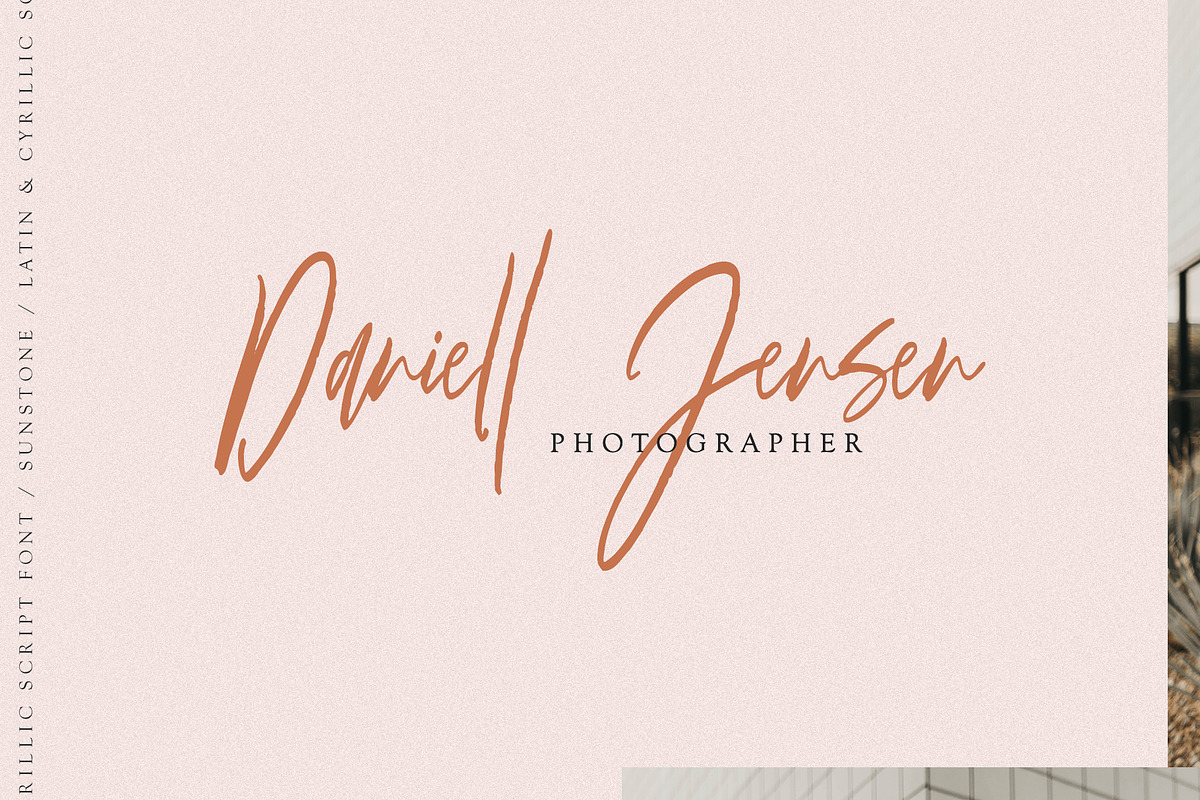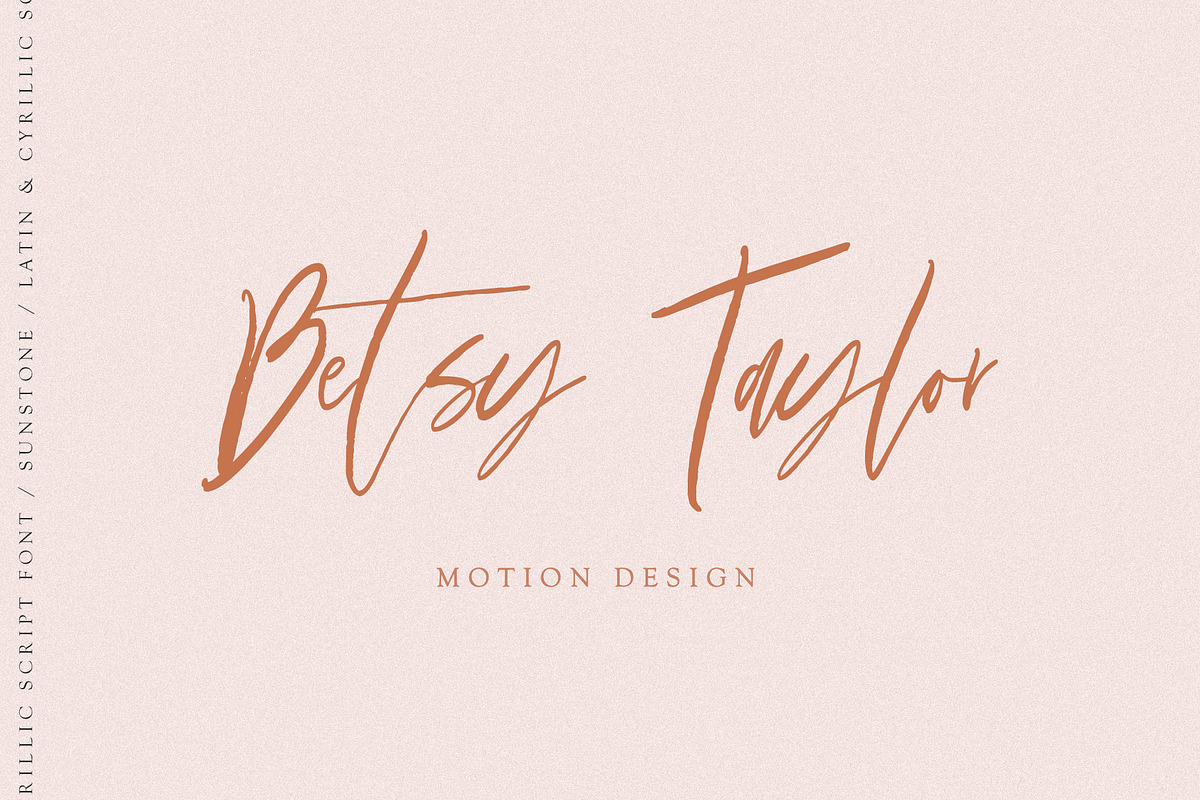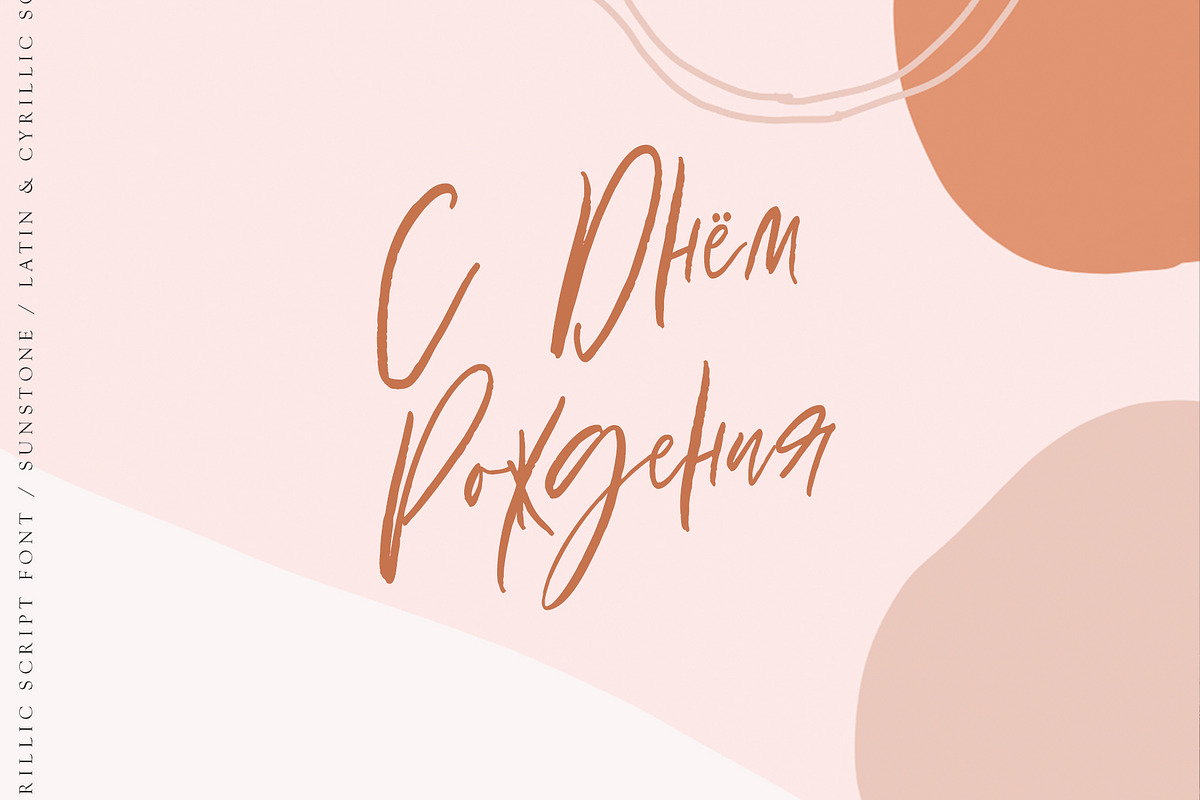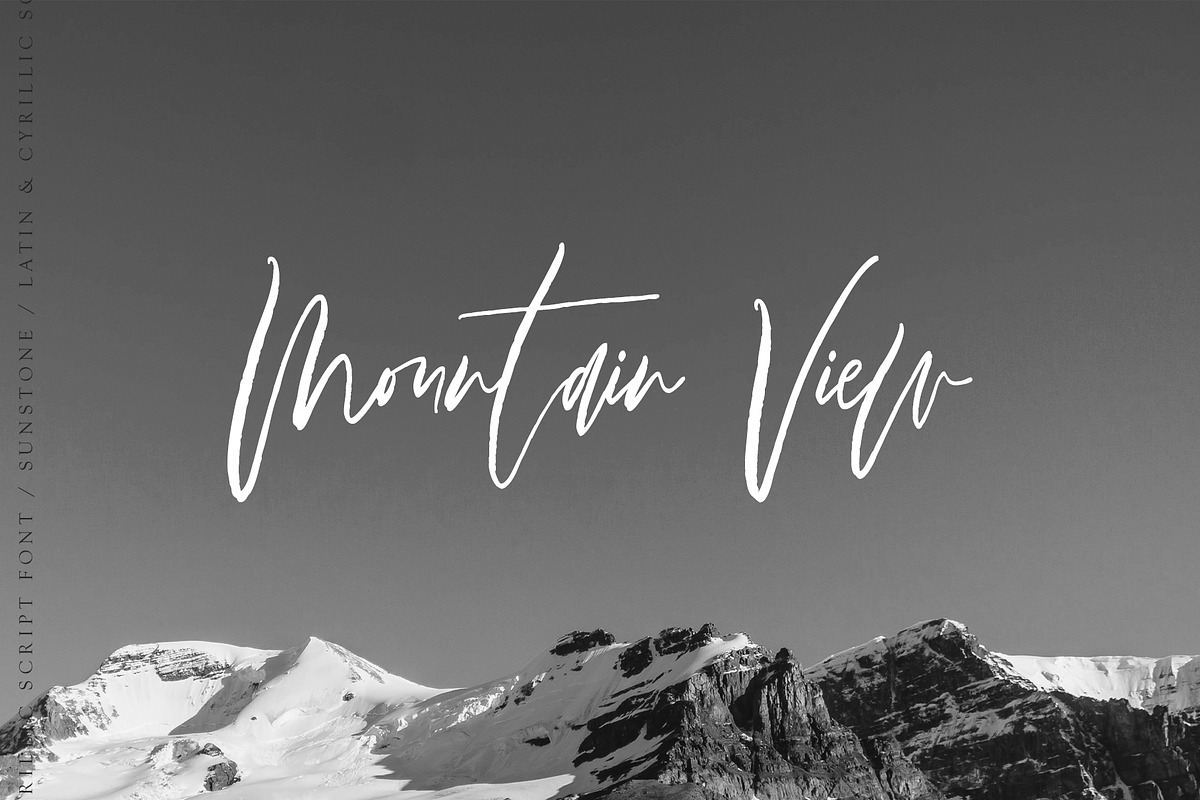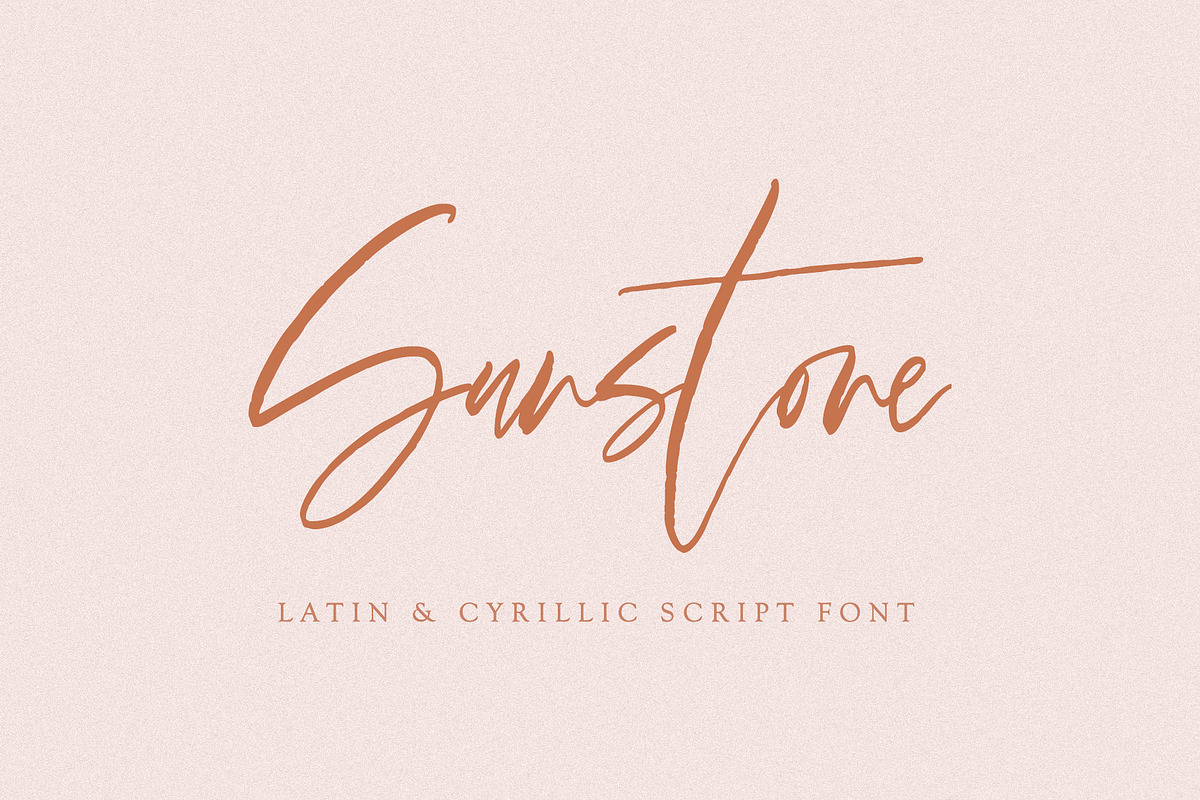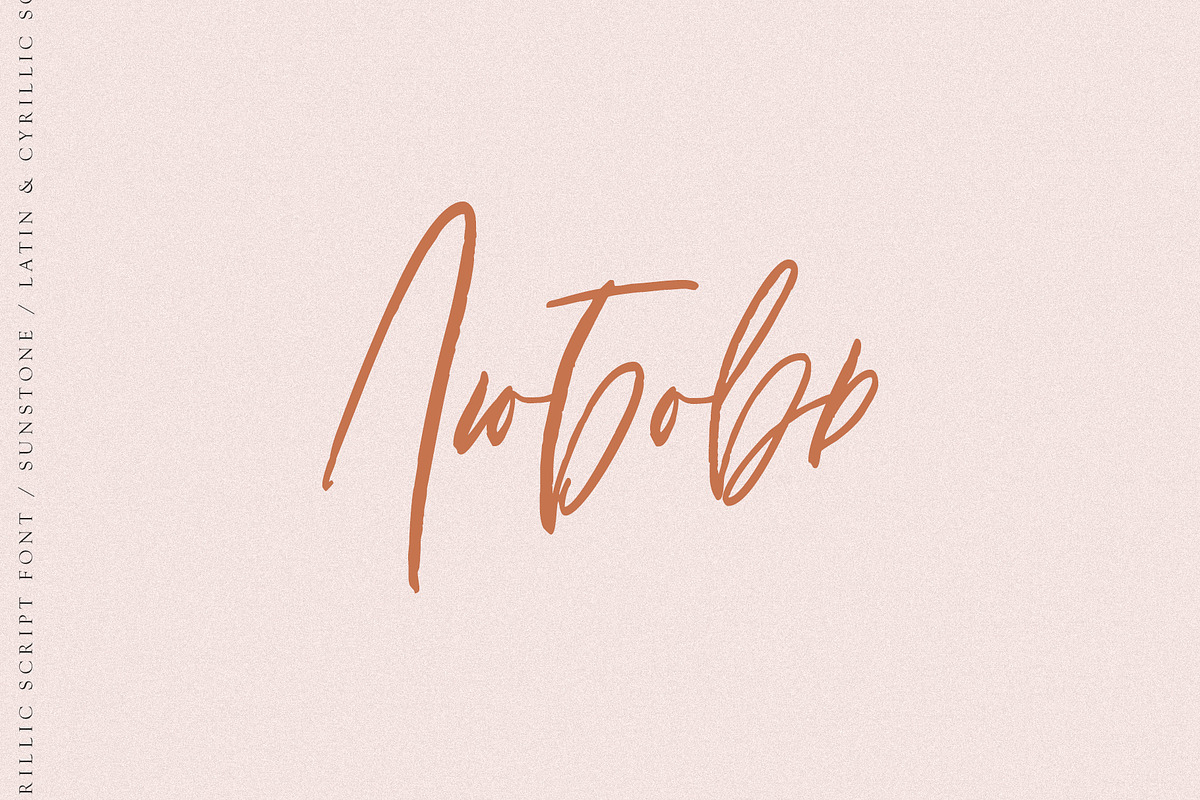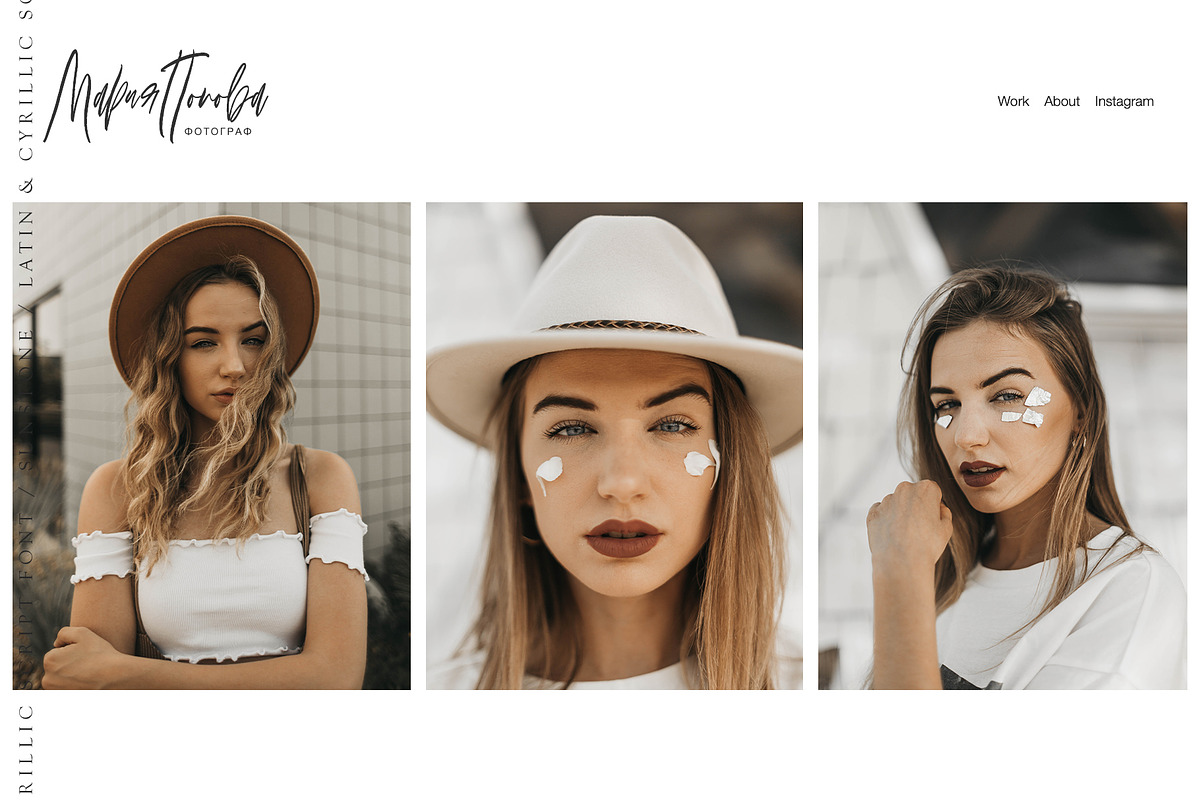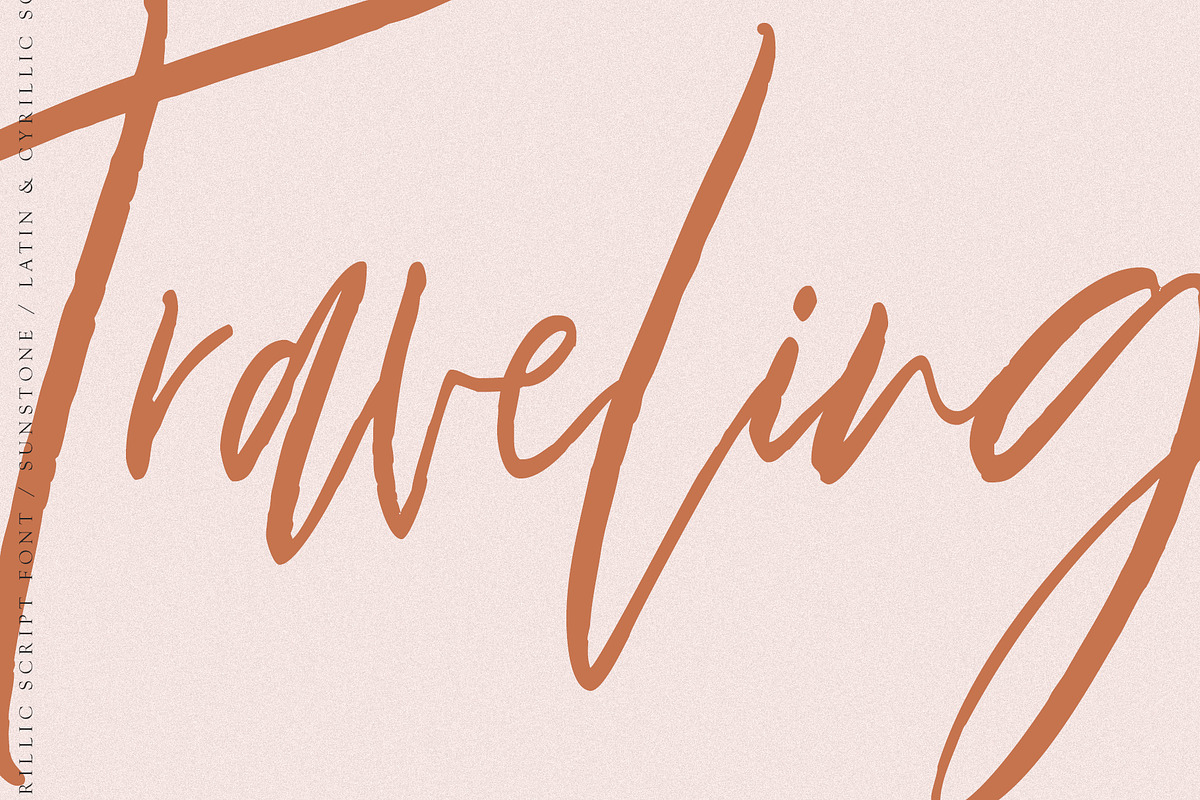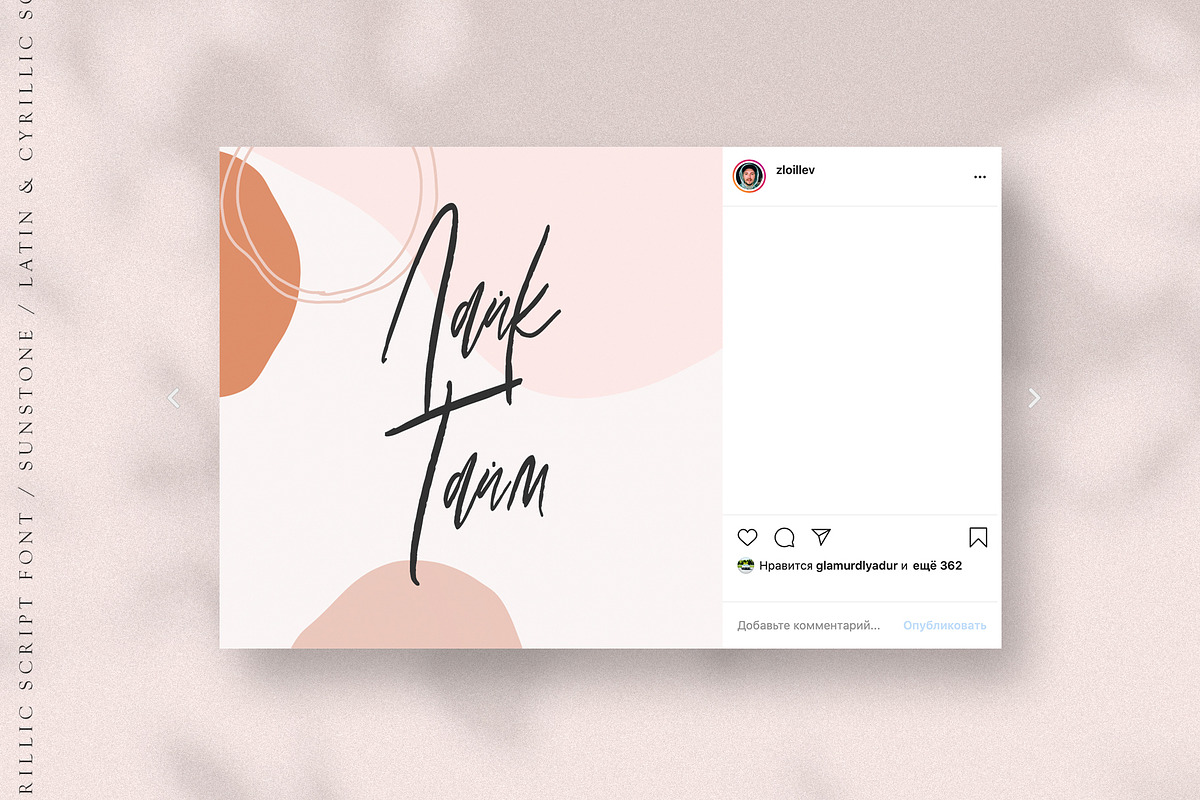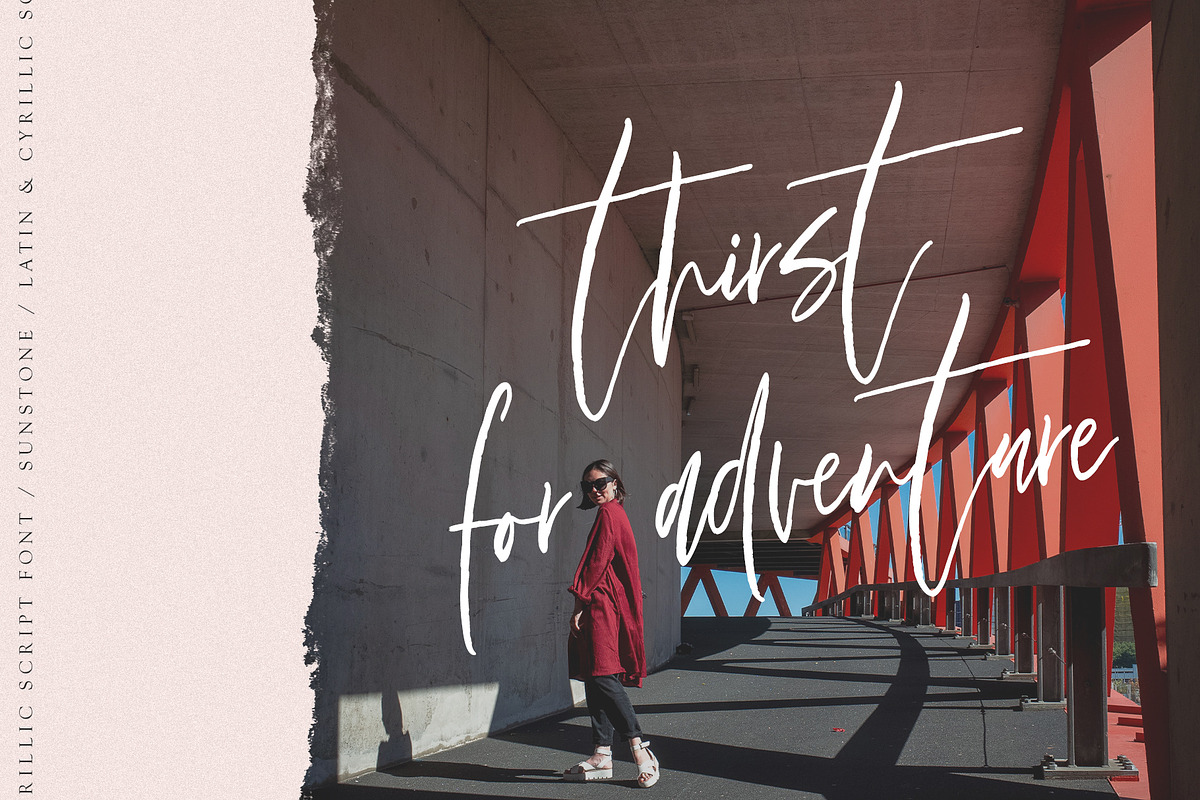
Sunstone Cyrillic & Latin
Sunstone Cyrillic & Latin font
Sunstone it is a Lettering chick font with exquisite accents and full Cyrillic support. It is perfect for branding, wedding invitations and invitation cards and many more
Font includes a full set of gorgeous uppercase and lowercase letters, numbers, a large selection of punctuation marks, ligatures
Sunstone - это милый шрифт с изысканными акцентами и полной поддержкой кириллицы. Он идеально подходит для брендинга, свадебных приглашений и пригласительных билетов и многого другого
- Regular Script
- Latin languages support
- Cyrillic languages support